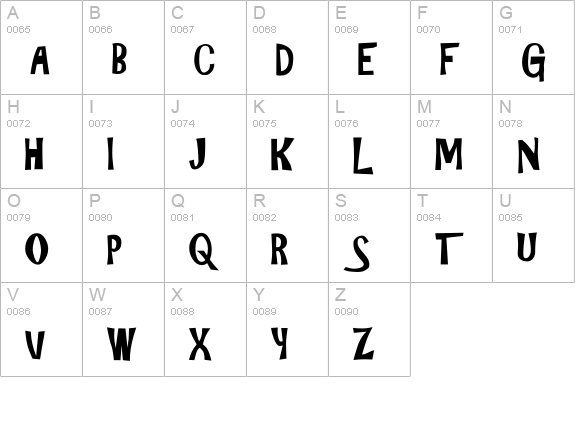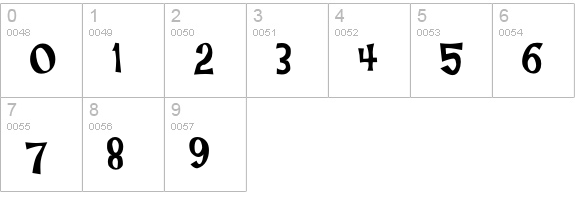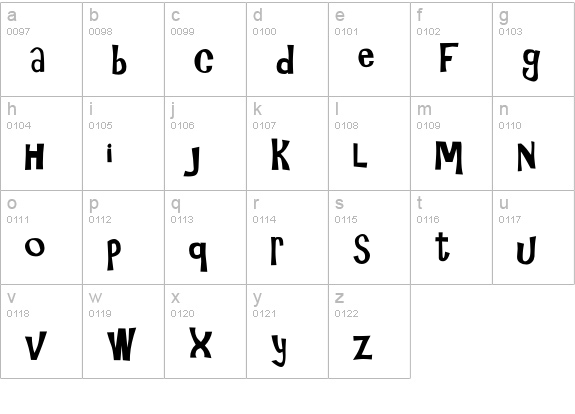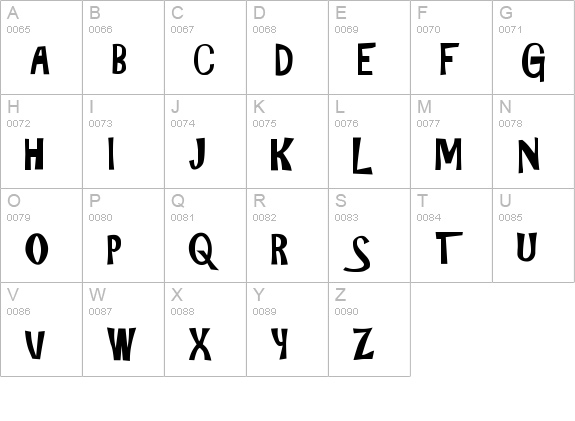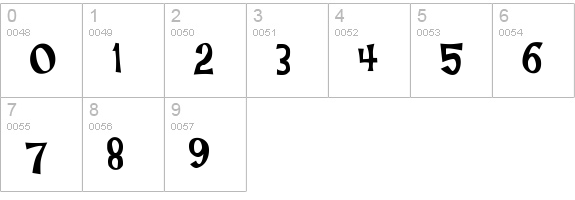
Gilligan font is a charming and whimsical typeface that exudes a sense of playfulness and creativity. With its rounded edges and unique letterforms, this font is perfect for adding a touch of fun to your designs. Whether you're working on a children's book, a greeting card, or a branding project, Gilligan font is sure to bring a smile to your audience's face. The best part? Gilligan font is available for free download at FontsMarket.com, making it accessible to designers of all skill levels. So why wait? Add a splash of whimsy to your next project with Gilligan font today!